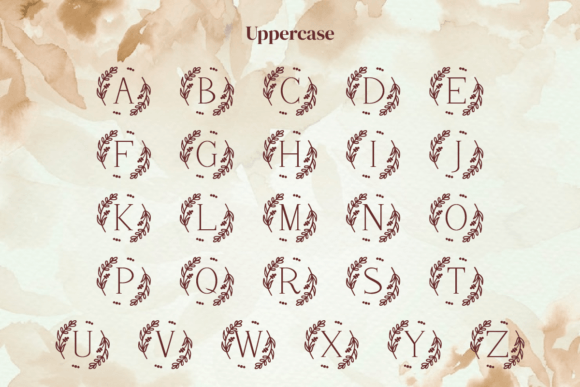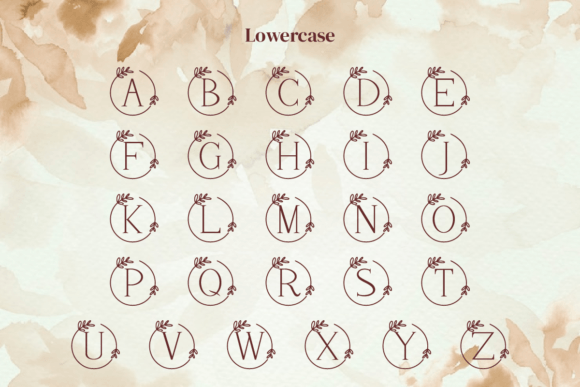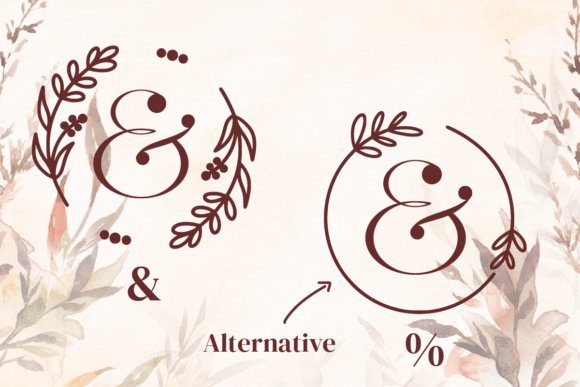
Introduction to Nirmala Font
Nirmala is a cute monogram decorative font.
Fall in love with its authentic feel and use it to create gorgeous wedding invitations, beautiful stationary art, engaging social media posts, and cute greeting cards .
Key Features of Nirmala Font